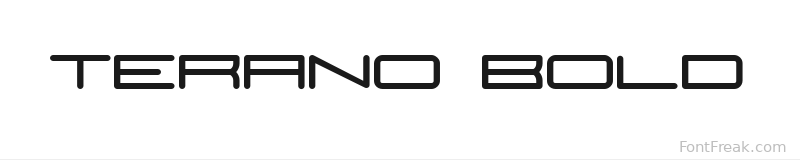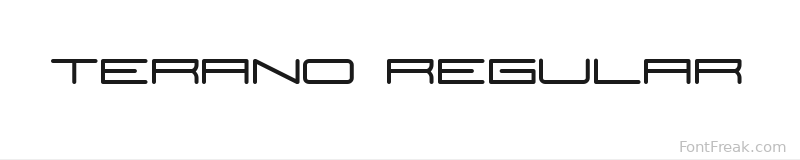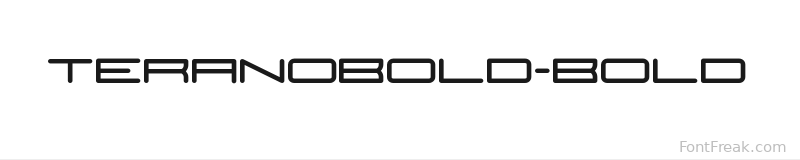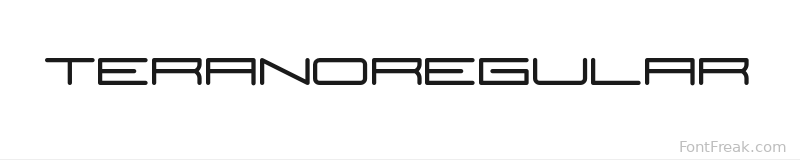
TeranoRegular
About TeranoRegular
TeranoRegular is a striking sans-serif font designed by Kong Font, showcasing a modern and clean aesthetic that makes it a versatile choice for various design projects. This font features a consistent stroke weight, offering a harmonious balance between readability and visual appeal. The even spacing between characters enhances legibility, making it suitable for both digital and print media. Its understated elegance is complemented by subtle geometric forms, which lend a contemporary touch without overwhelming the viewer.
The TeranoRegular font is ideal for a wide range of applications. Its clean lines and straightforward design make it perfect for corporate branding, including logos and business cards. Additionally, it works exceptionally well for website headers and digital content, ensuring that your messaging stands out in a crowded online space. The font can also be effectively used in restaurant menus, providing a modern yet approachable feel that invites customers to explore the offerings. For those in the creative fields, TeranoRegular is an excellent choice for editorial layouts, magazines, and brochures, where clarity and style are paramount.
In conclusion, the TeranoRegular font stands out due to its balanced design and versatility. Whether you are crafting a sophisticated marketing campaign or designing a simple flyer, the TeranoRegular font free download provides a stylish and practical choice that meets the demands of modern design. Its timeless appeal ensures that it will remain relevant across various projects and industries.
Author Kong Font